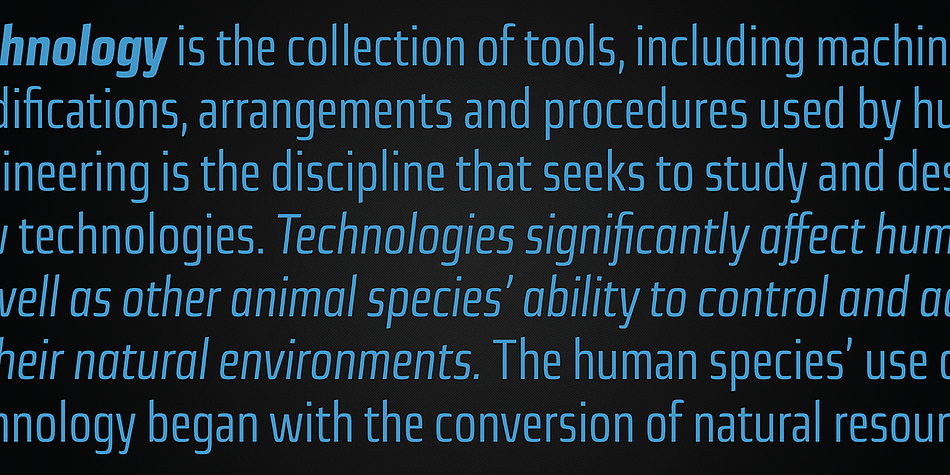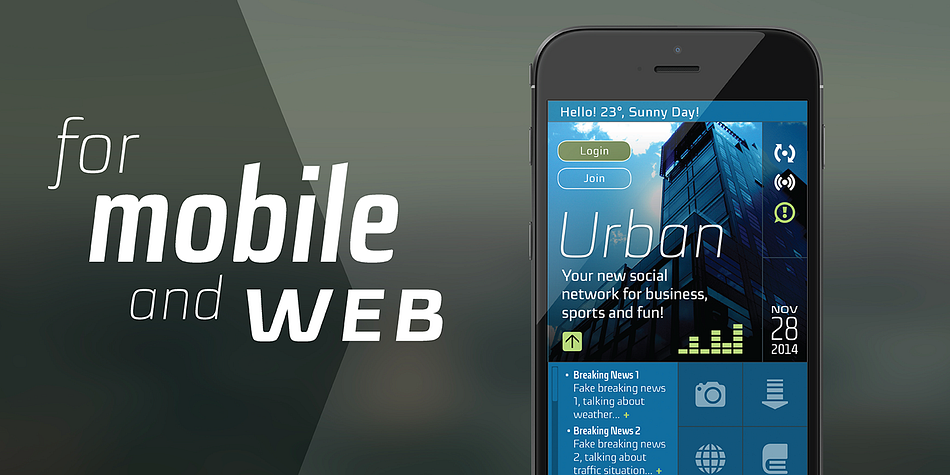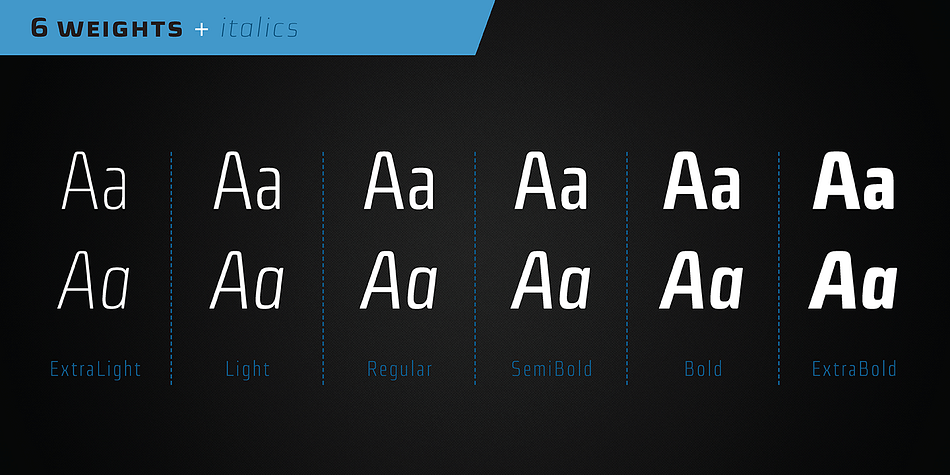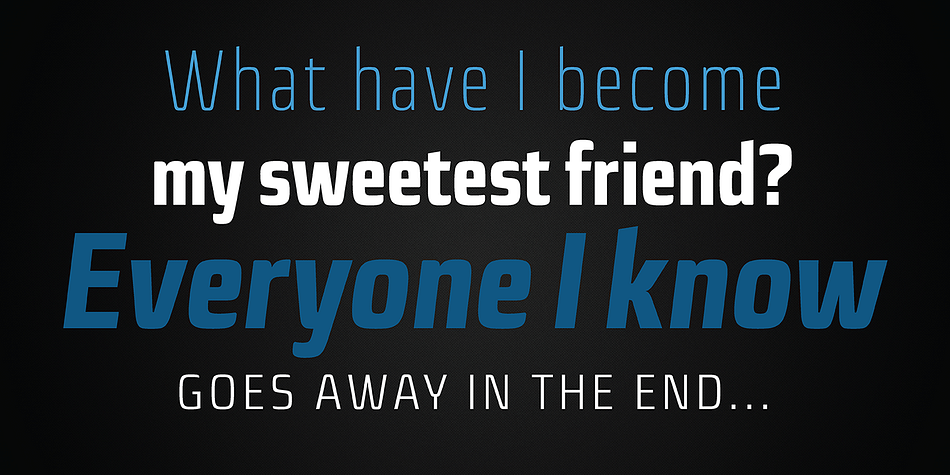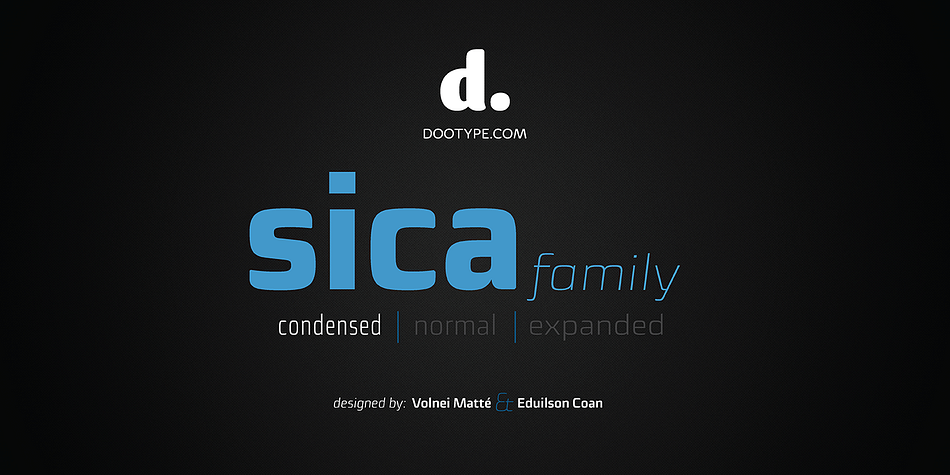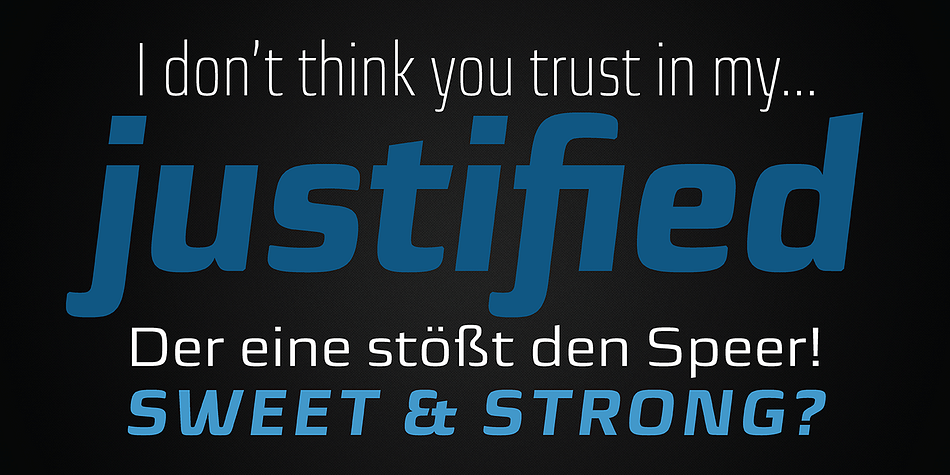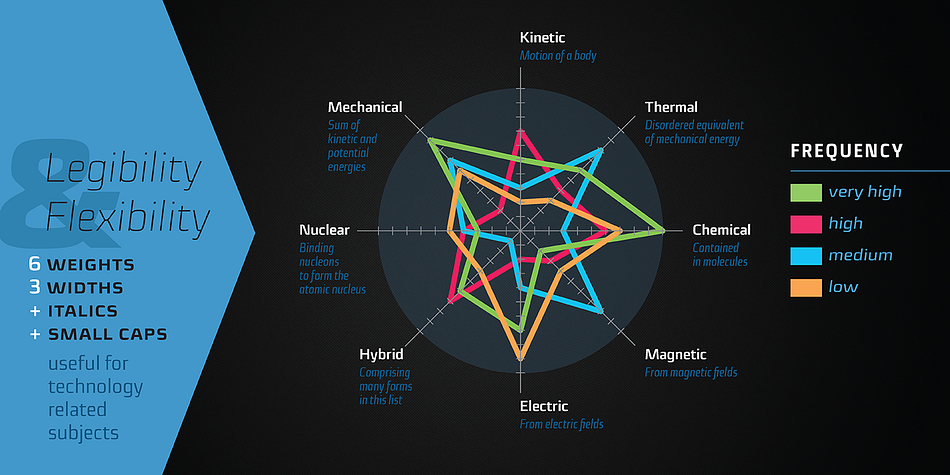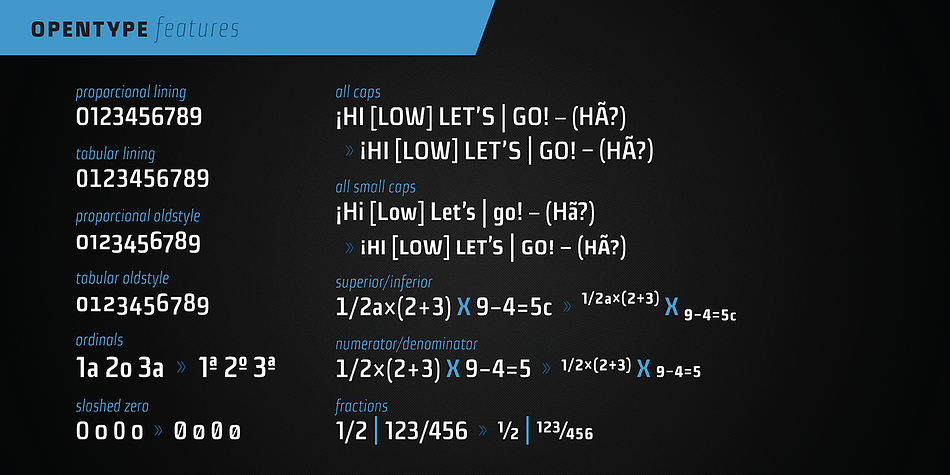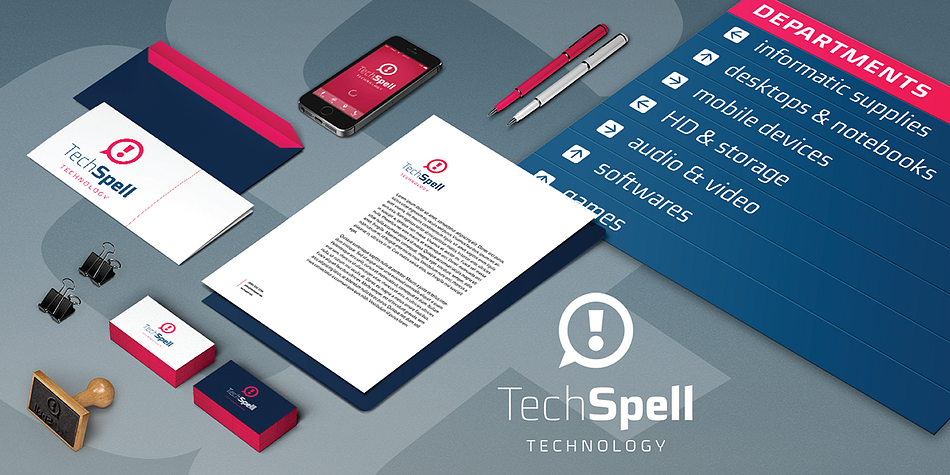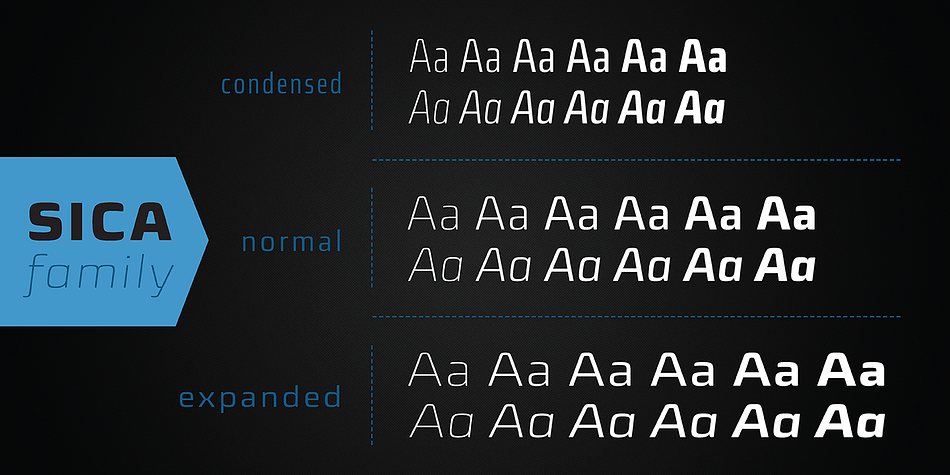
Sica Condensed is a sans serif font family. This typeface has twelve styles and was published by dooType.
The Sica Family was designed in order to address issues related to technology, while maintaining humanistic forms. Thus, a font with square shapes emerged, but with smooth curves and slightly rounded terminals making it friendly.
The family has three widths – condensed, normal and expanded – each of them with six weights and their respective italics, resulting in 36 fonts. With particular details and open shapes that increase legibility, it can be used for both text compositions as well for display sizes. It has 774 glyphs, covering more than 50 languages, as well as ligatures, lining, oldstyle, tabular and proportional figures, fractions, superiors, inferiors, and small caps, all of them accessible through OpenType features.